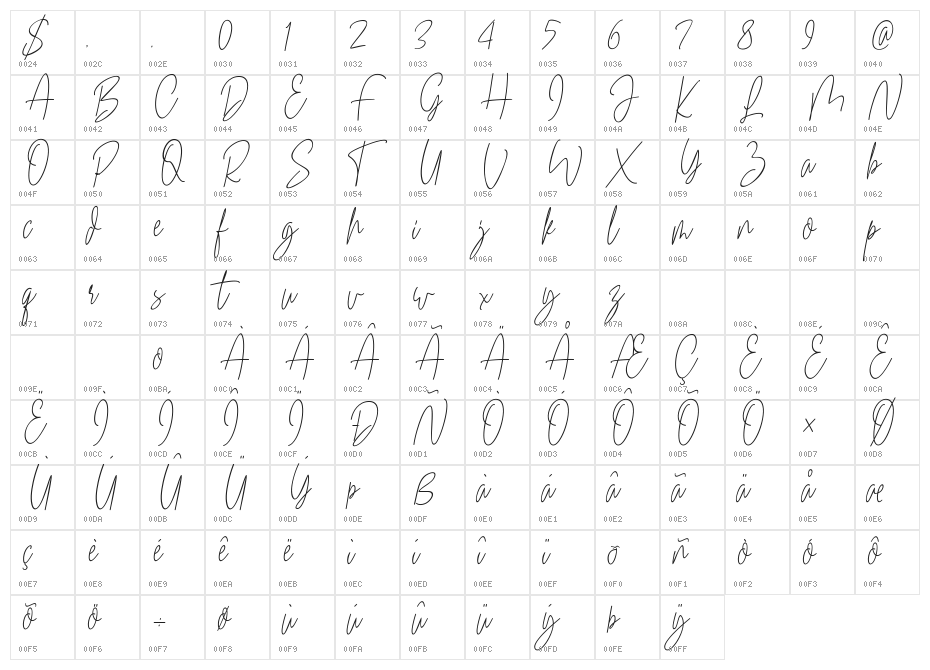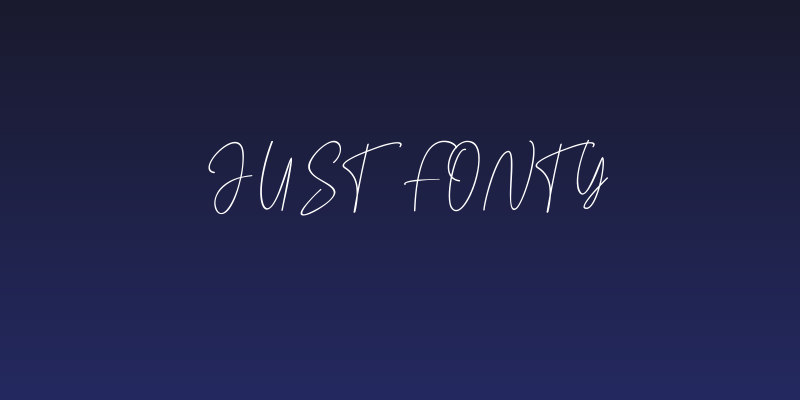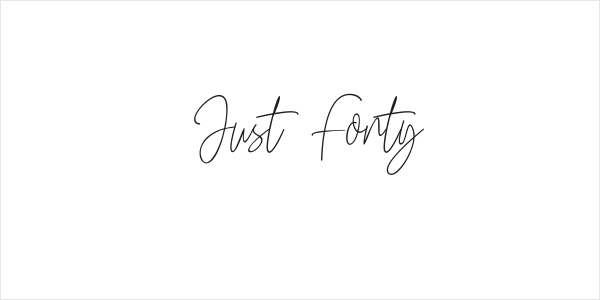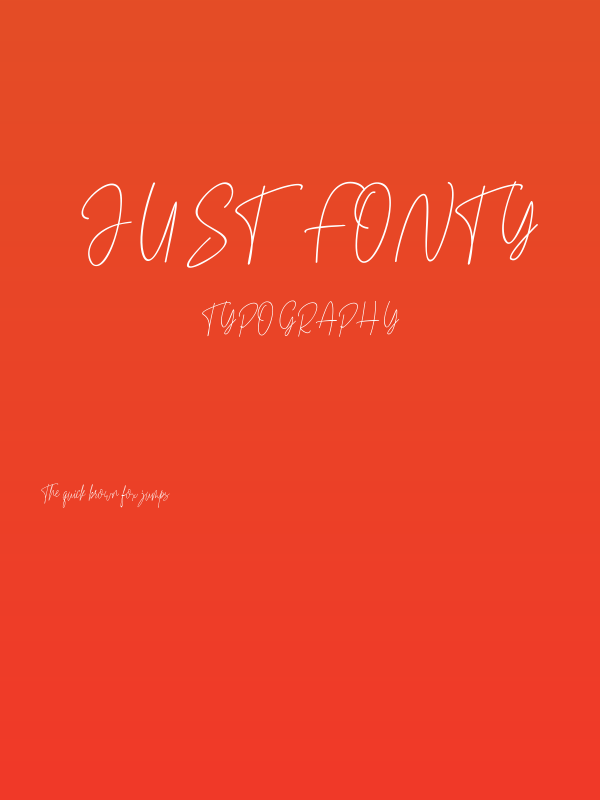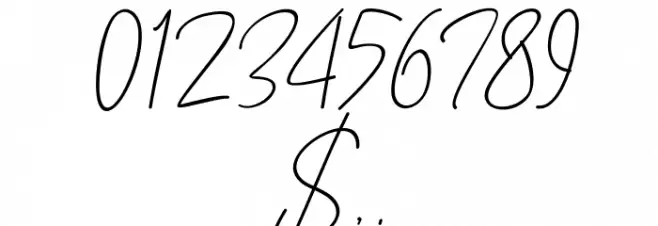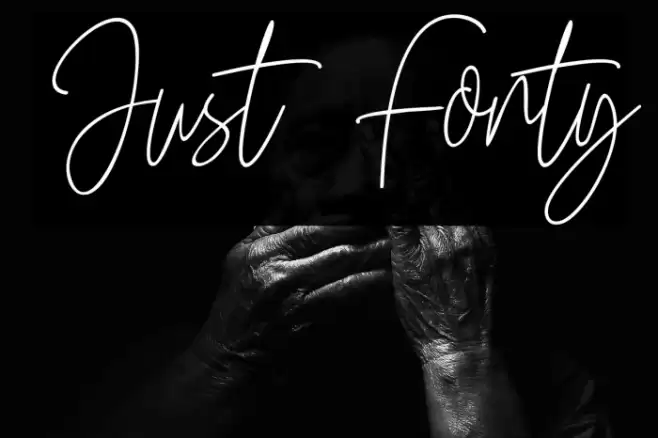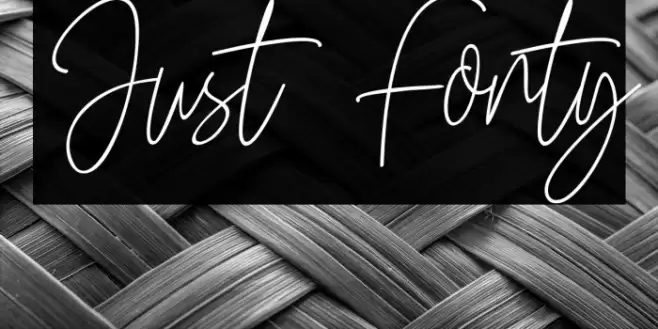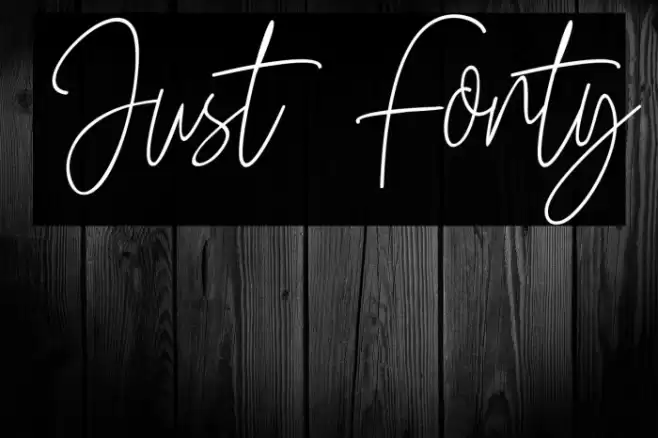
Just Fonty Font
This font features a flowing, cursive style that mimics natural handwriting, offering a personal and informal touch. The letters are connected with smooth, elegant strokes, creating a sense of fluidity and movement. The uppercase letters are slightly more structured, while the lowercase letters exhibit a more relaxed and freeform appearance. The numerals and special characters maintain the same handwritten aesthetic, ensuring consistency across all elements. This font is ideal for projects that require a personal, artistic, or creative flair.
| Proposed Projects | Ideal for wedding invitations, greeting cards, personal branding, and artistic projects. |